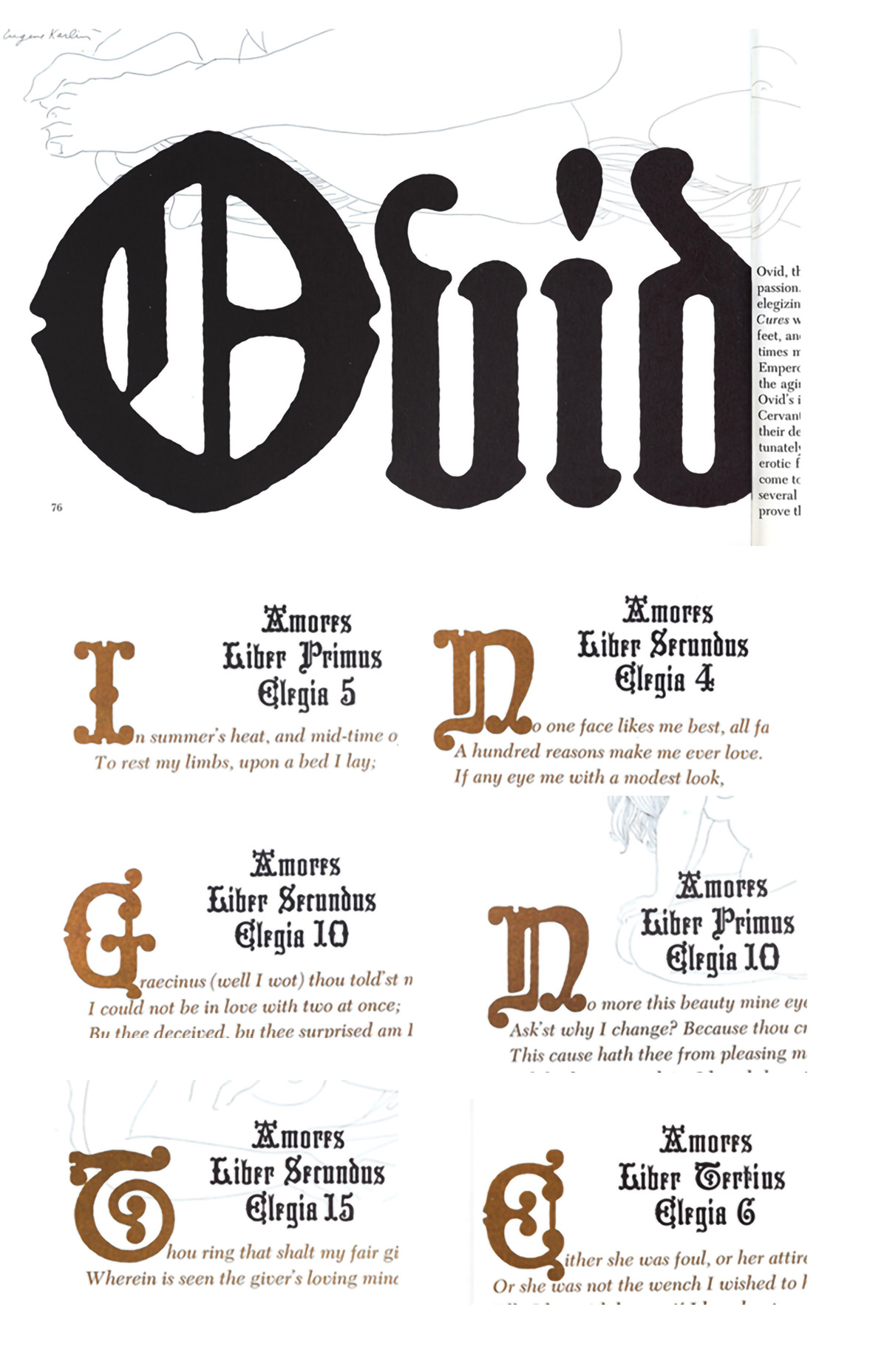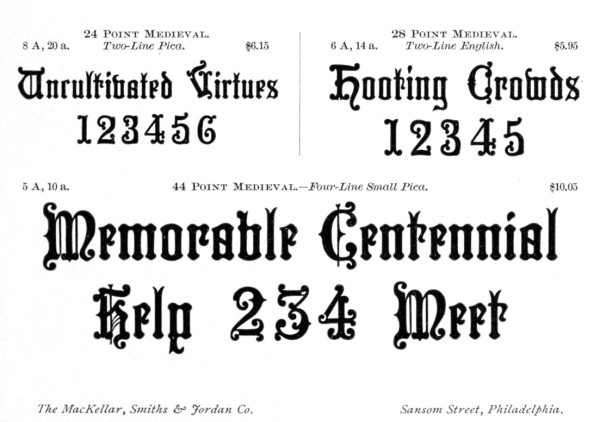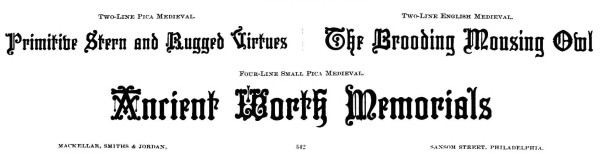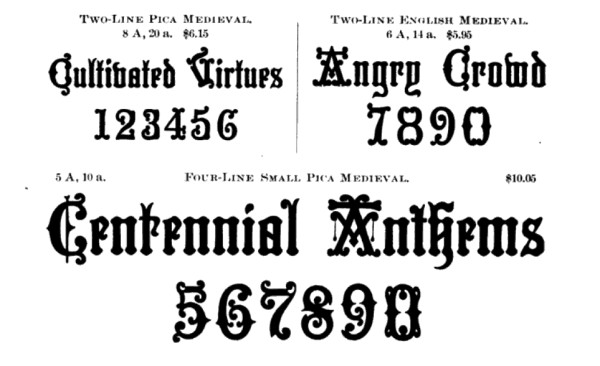
From the 2nd Eros Magazine, 1962. Does anyone know what this font is? I guess it could be custom work by Lubalin. If so, what are some similar typefaces?
A similar style is shown as “Medieval” in the 9th edition of Hills Manual of Social and Business Forms from 1876. It probably is a foundry typeface, but it might also be a custom drawn alphabet. In 2010, Brian J. Bonislawsky digitized it as MFC Hills Medieval.
It’s not a match for your sample. The letterforms might have been derived from a different field than printing typefaces, think alphabets for gravestone lettering, for example. The closest style in Photo-Lettering’s library that I could find is Memorial, an adaptation of a typeface issued by the Boston foundry in 1881 – which likewise was digitized by Bonislawsky, as Reliquaire AOE.
Alright, I did some more digging. This general design originated in 1847 at Figgins in England, as Tudoresque. In her Nineteenth Century Ornamented Typefaces, Nicolete Gray shows it in a single size (≈44pt). In 1869, Bruce in the United States showed a similar cut, also in a single size (≈24pt), as Medieval. In 1878, MacKellar, Smiths & Jordan showed Medieval in three sizes. While the largest size appears to match Figgins’s cut, the smallest appears to match Bruce’s. The digital MFC Hills Medieval is based on the largest size. The letterforms in Eros appear to match the medium size. For more info and links, see Tudoresque at Fonts In Use.
Here are three samples showing the three sizes by MS&J, from specimens from 1885, 1888, and c.1892. Note the differences in repeating letters like A, C, r, t.
I think I'm in love with this typeface. Just look at that capital A!